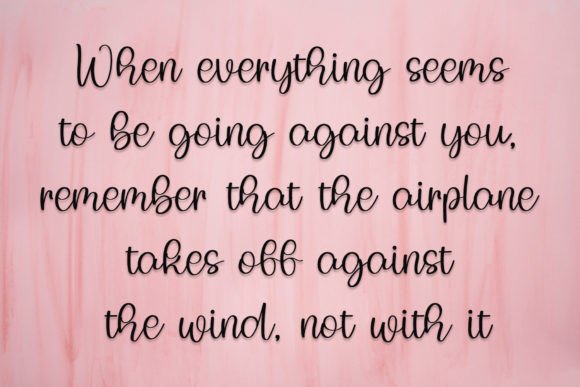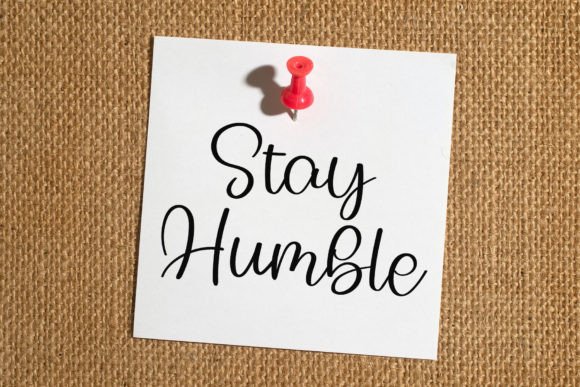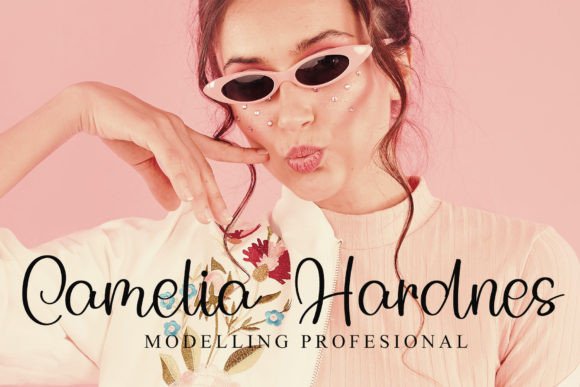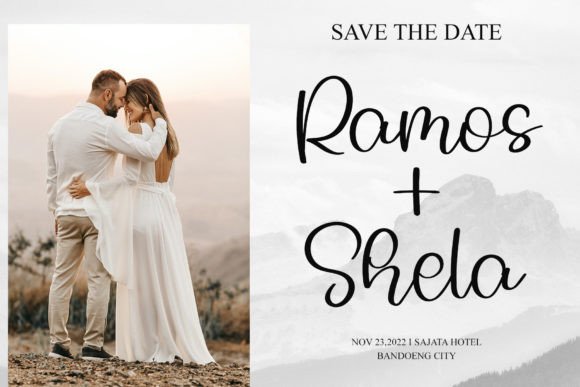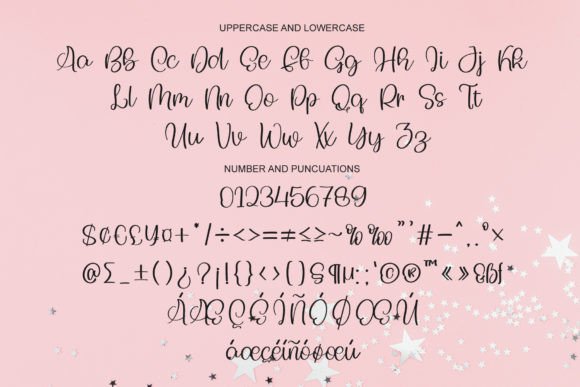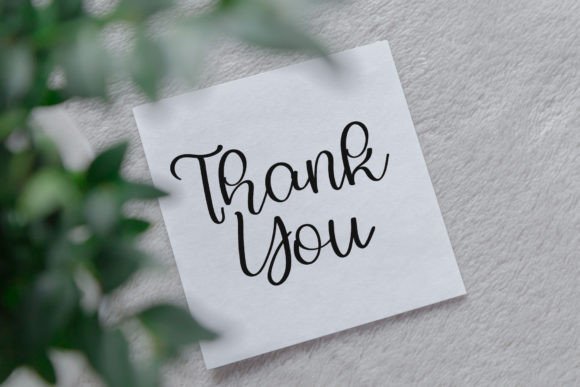
Cutesy Font
About Cutesy Font
Cutesy Font is a stylish handwritten script that blends contemporary design with timeless calligraphic inspiration. With balanced strokes and refined details, this typeface was designed to enhance the beauty of your creative work. Because of its versatile style, Cutesy Font is suitable for invitations, posters, branding, social media graphics, and logos.
A Stylish Handwritten Typeface with Calligraphic Elegance
Handwritten fonts often bring authenticity, and Cutesy Font elevates that with graceful calligraphy touches. Its flowing strokes feel modern yet keep the traditional beauty of classic lettering alive. Moreover, its balanced structure ensures readability across different mediums. As a result, this typeface combines elegance and practicality, making it a reliable choice for professionals and hobbyists alike.
For anyone working on stationery, Cutesy Font is an excellent option. For example, it can transform a simple wedding invitation into a sophisticated keepsake. In addition, it works wonderfully for thank-you cards, birthday notes, and seasonal greetings. Because of its stylish and graceful look, every card or note feels polished and heartfelt.
A Script Typeface for Logos and Branding
Brands and creatives can also benefit from the elegant personality of Cutesy Font. Logos, labels, and product packaging gain uniqueness and charm when designed with this script. Furthermore, on social media, it adds sophistication to posts, stories, and promotional graphics. When paired with clean sans serif fonts, Cutesy Font strikes a perfect balance between professionalism and artistry.
Another strength of Cutesy Font is its adaptability across platforms. In print, it works beautifully on posters, brochures, merchandise, and magazines. Digitally, it enhances websites, blogs, and presentations with elegance. Since it scales well, this handwritten script remains clear and stylish whether used for small captions or large titles.